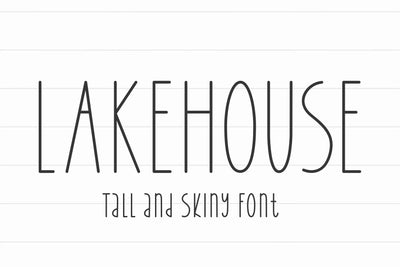
Lakehouse - Tall and Skinny Font Rae Dunn
Lakehouse is perfect for signs! This font includes uppercase, lowercase, number, and punctuation. Lakehouse is a tall and skinny font. Check out our other farmhouse-style fonts that pair perfectly with this one!
Multilingual support:
ÁÂÄÀÅÃÇÉÊËÈÍÎÏÌÑÓÔÖÒØÕŒŠÚÛÜÙÝŸŽ
àáâãäåçèéêëìíîïñòóôõöøœùúûüýÿšž